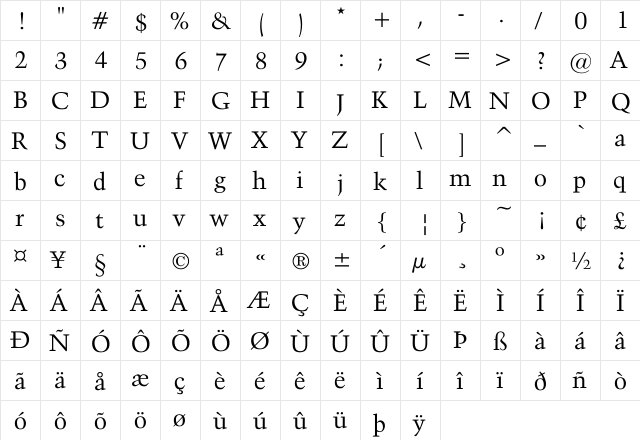
LIBRARY Regular
Design Context for LIBRARY Typeface
LIBRARY is a composed and adaptable typeface that performs quietly and consistently across a wide range of design contexts.